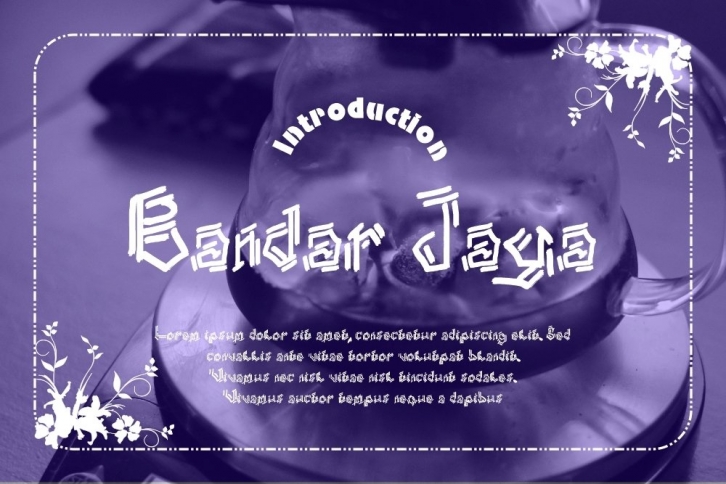
Bandar Jaya is a beautiful font that was designed by gblack-id. It's a great choice for designers and creatives who need such a font. It was released on June 11, 2020 and the file size is 5.87 MB. Bandar Jaya may give a more youthful, expressive and casual look to your project. It is a very beautiful, refined, elegant, and high-quality font.